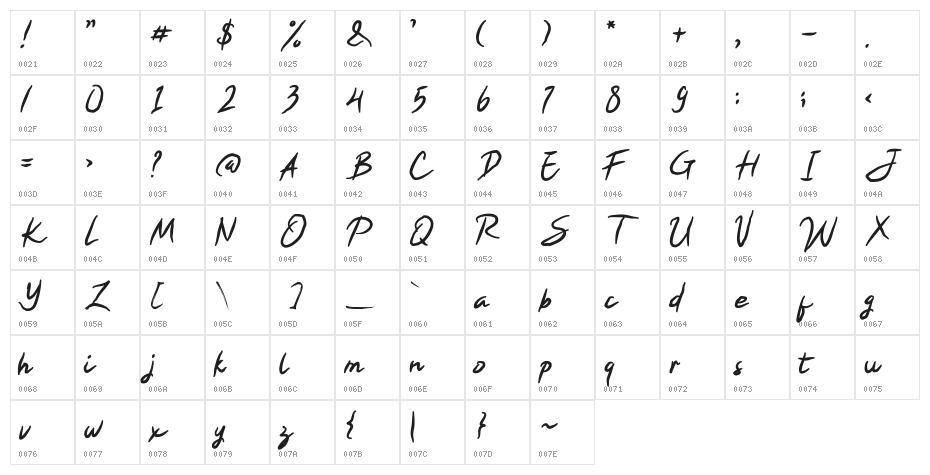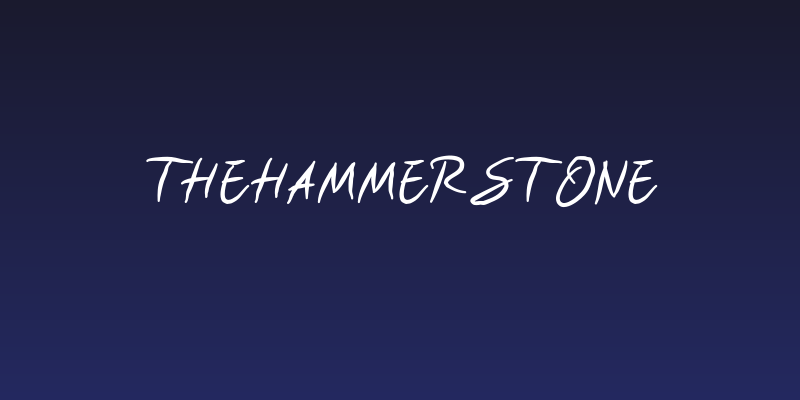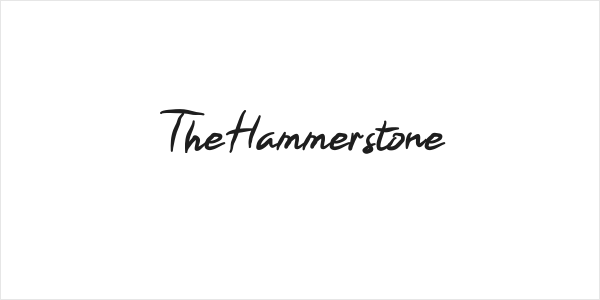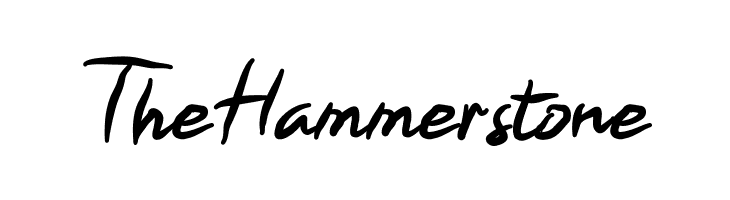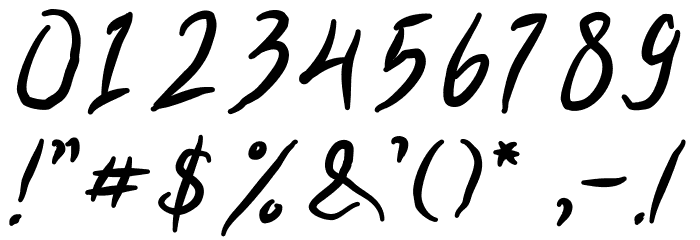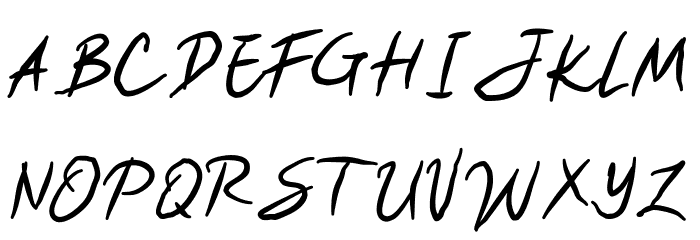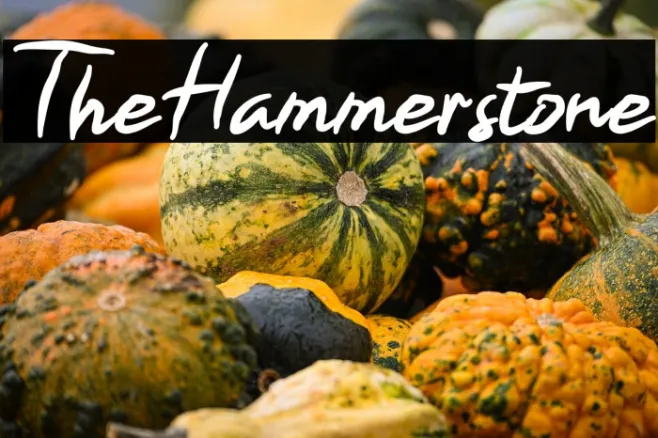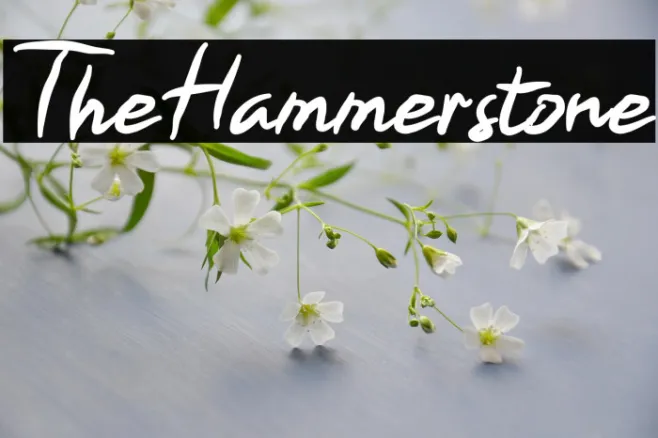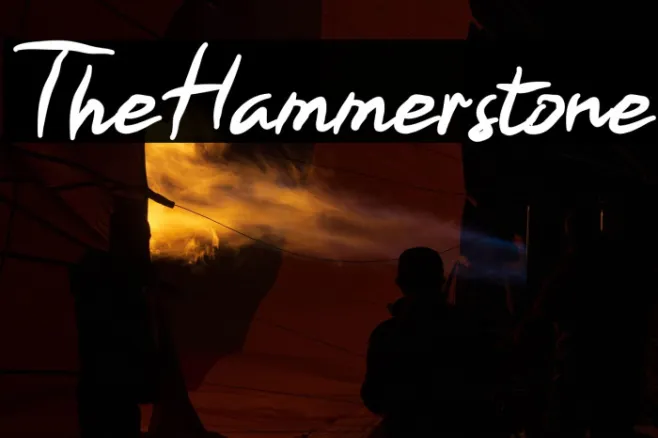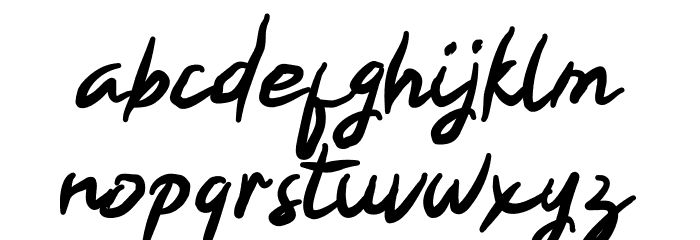
TheHammerstone Font
TheHammerstone Description
A dynamic, handwritten script font with irregular strokes and a casual, energetic appearance. The characters are slightly slanted, with varied thickness and expressive, natural curves, mimicking authentic handwriting.
| Overall Style | Decorative, Casual, Handwritten |
| Use Case | Logos, Headlines, Invitations, Posters |
| Proposed Projects | Greeting cards, personal branding, invitations, quotes, posters, creative social media graphics. |